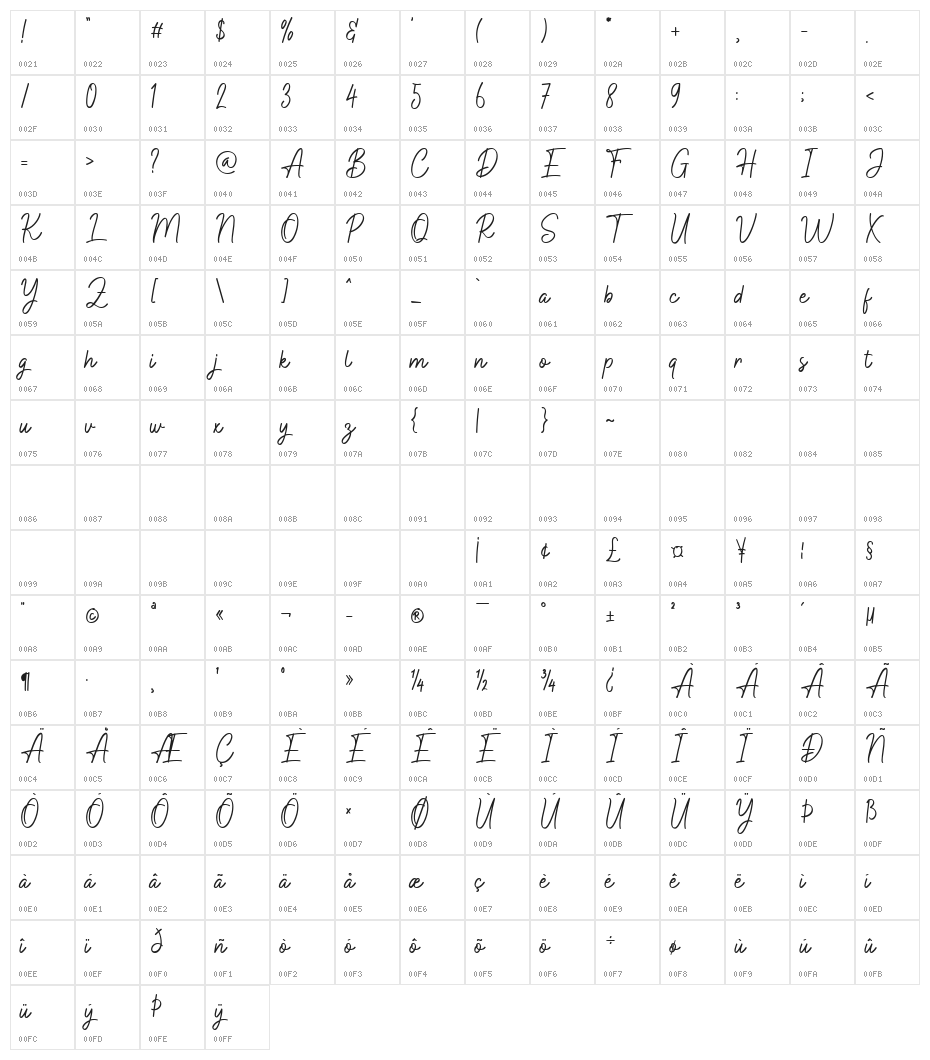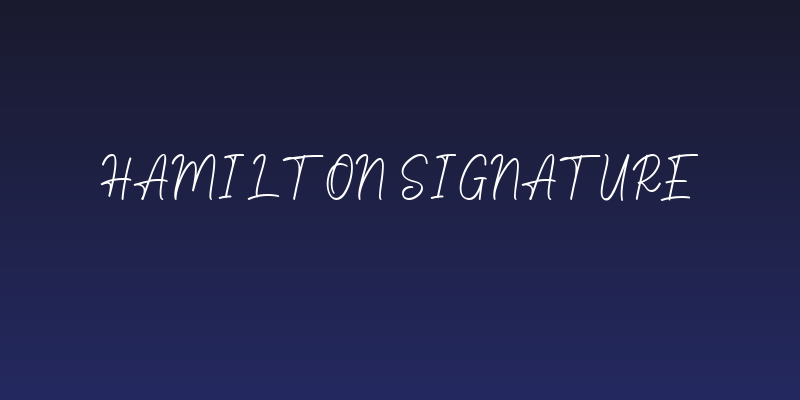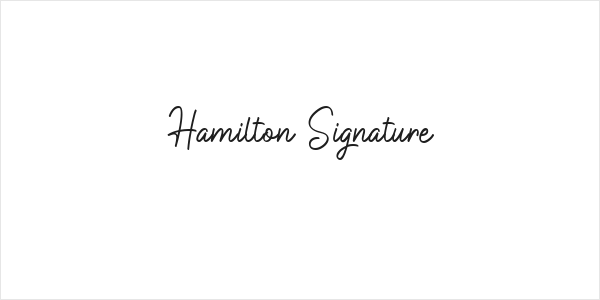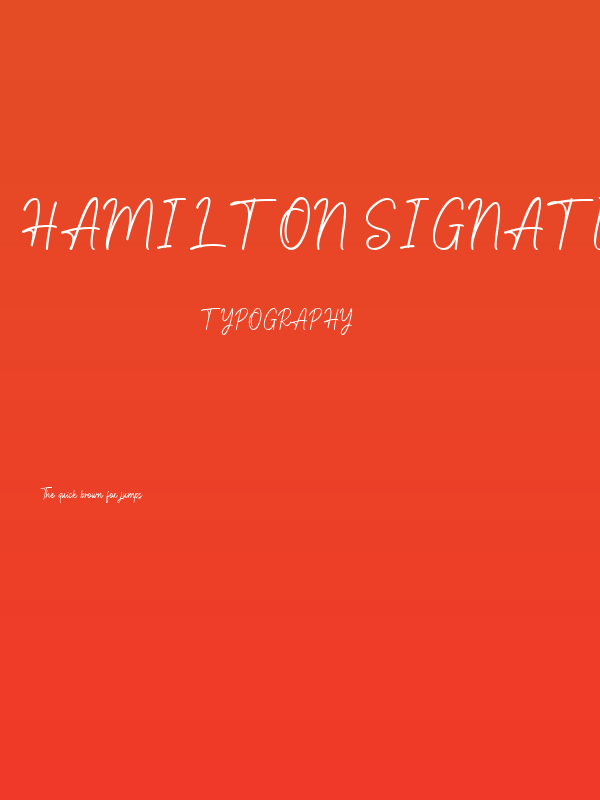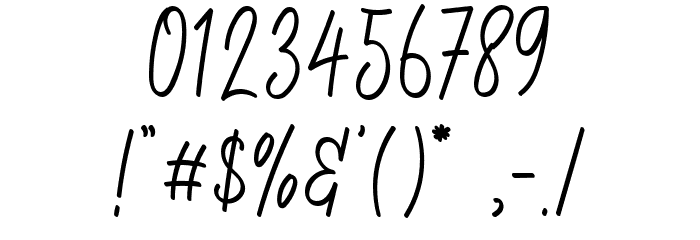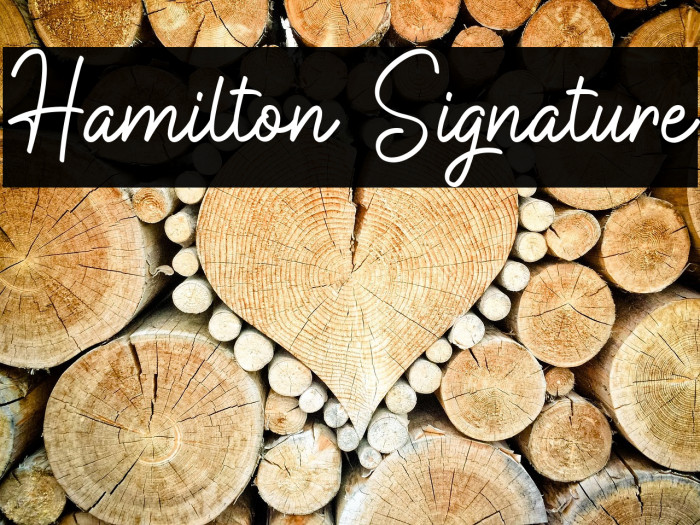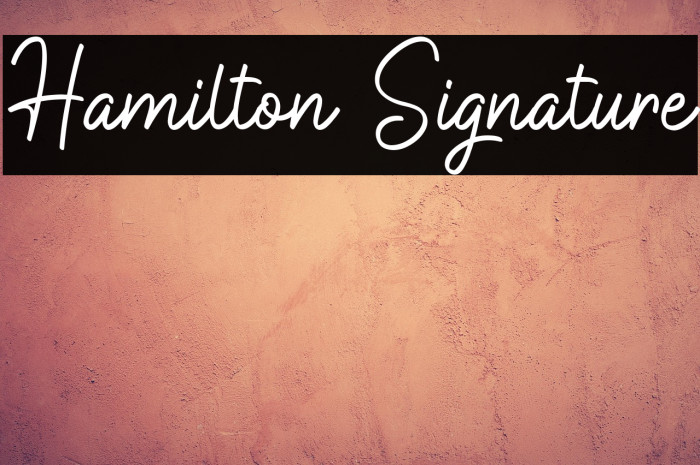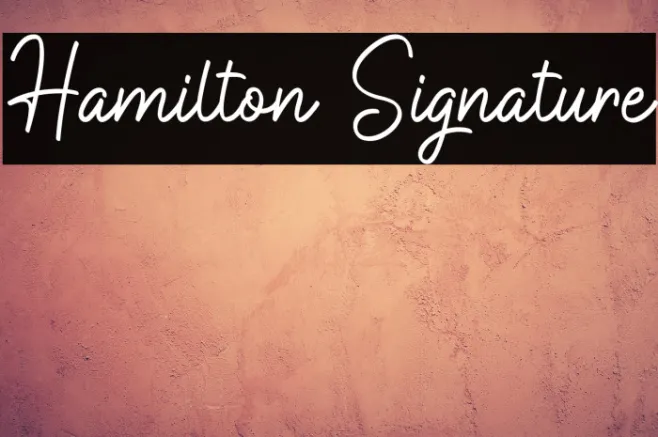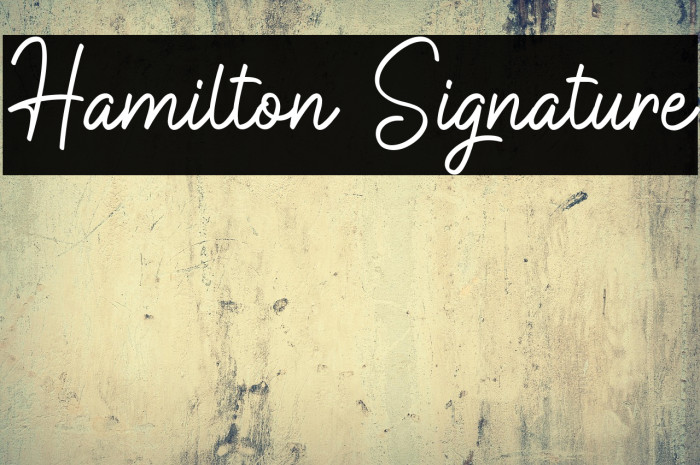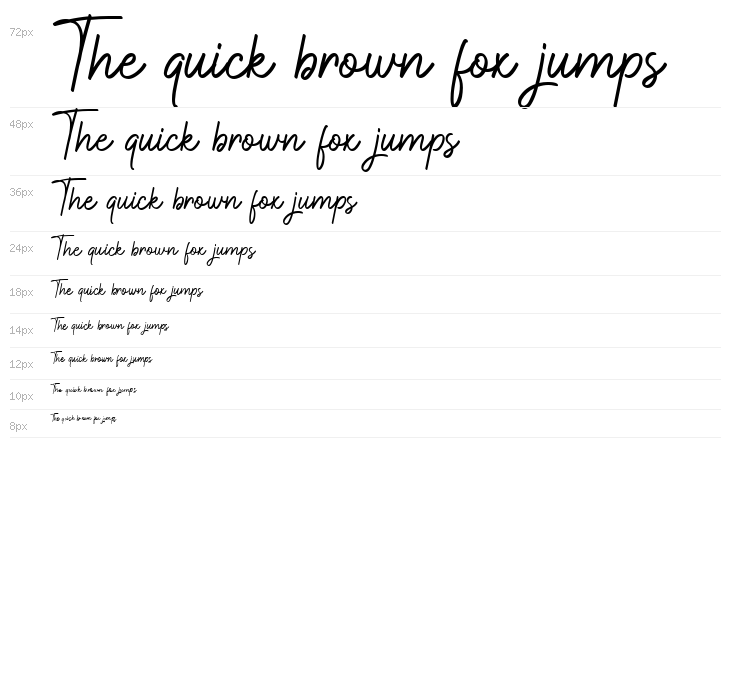
Hamilton Signature Font
Hamilton Signature Description
This font exudes a casual elegance with its fluid, cursive style that mimics natural handwriting. The characters are gracefully connected, creating a seamless flow that is both sophisticated and approachable. The uppercase letters maintain a consistent height, while the lowercase letters exhibit charming loops and curves. The numerals are clear and legible, matching the overall aesthetic. Special characters are thoughtfully designed to complement the script, adding versatility. This font is perfect for projects that require a personal touch, such as invitations, greeting cards, and branding materials.
| Proposed Projects | Ideal for invitations, greeting cards, personal branding, and elegant logos. |